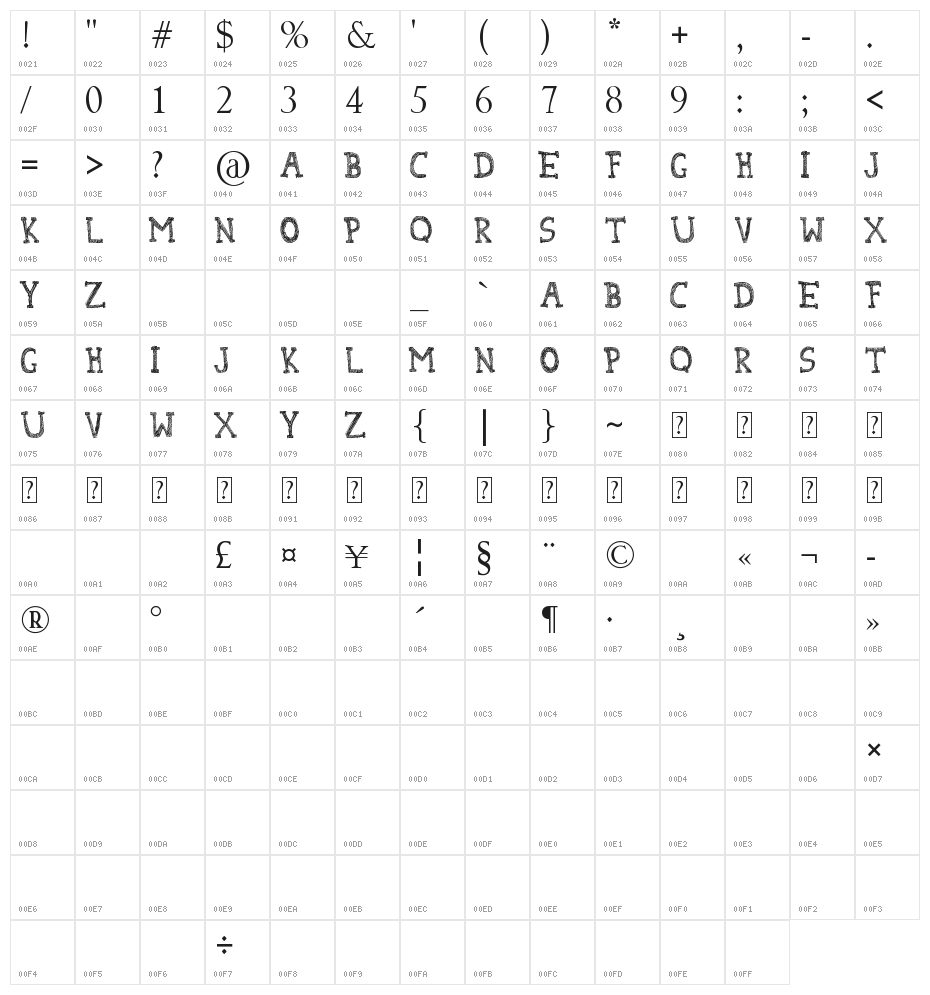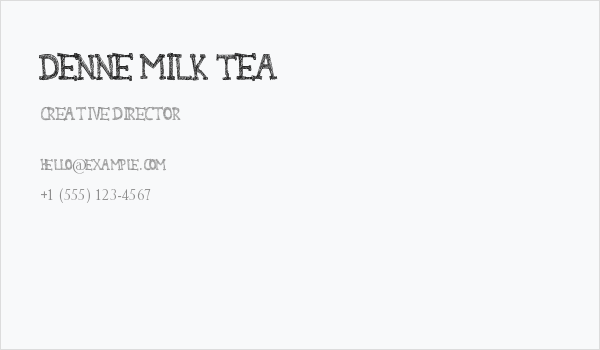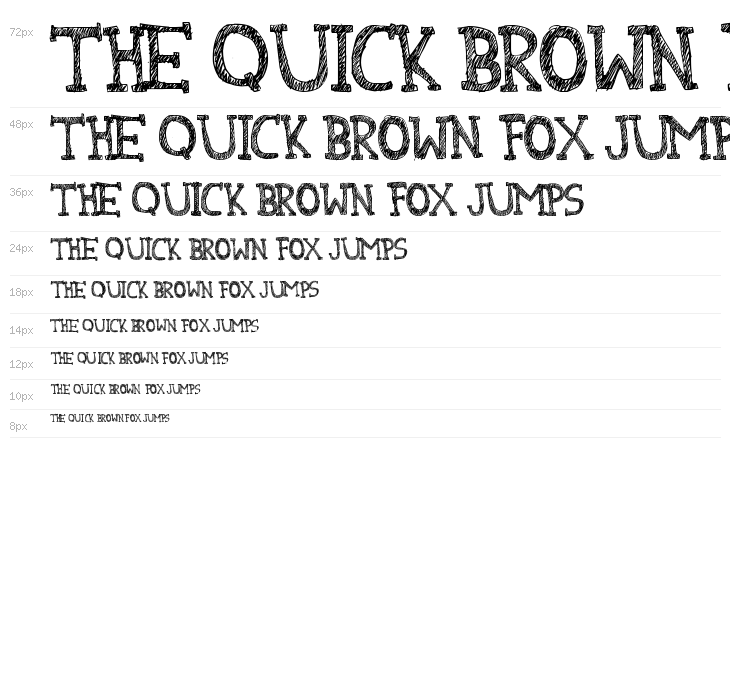
DENNE MILK TEA Font
DENNE MILK TEA Description
This font features a playful and textured design, with each character appearing as if it has been hand-drawn with a pencil or crayon. The uppercase letters exhibit a bold and slightly irregular shape, adding a whimsical touch. The lowercase letters maintain the same playful style, with consistent stroke widths that create a cohesive look. Numbers are clear and easy to read, while special characters retain the same hand-drawn aesthetic. The overall appearance is both artistic and approachable, making it suitable for creative projects that require a personal touch.
| Proposed Projects | Ideal for children's book covers, playful branding, greeting cards, and DIY craft projects. |